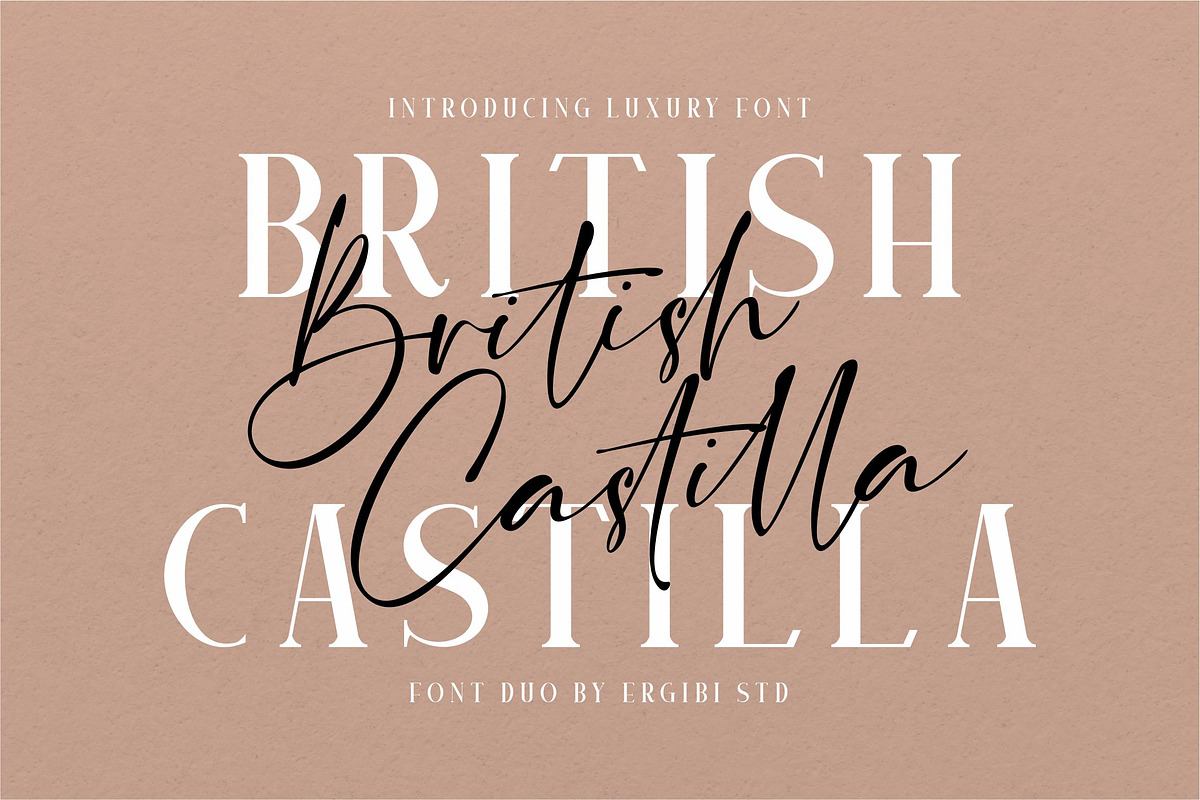
British Castilla – Luxury Font Duo Free Download is a sophisticated pairing of elegant serif and stylish script fonts, crafted to bring a high-end look to any design. Perfect for luxury branding, wedding invitations, packaging, fashion editorials, and upscale logos, this duo creates a harmonious blend of classic and modern aesthetics.
The serif font delivers timeless structure and readability, while the script adds a refined, handwritten flair. Together, they offer endless design versatility. British Castilla includes ligatures, stylistic alternates, multilingual support, and is fully compatible with both Mac and Windows systems.